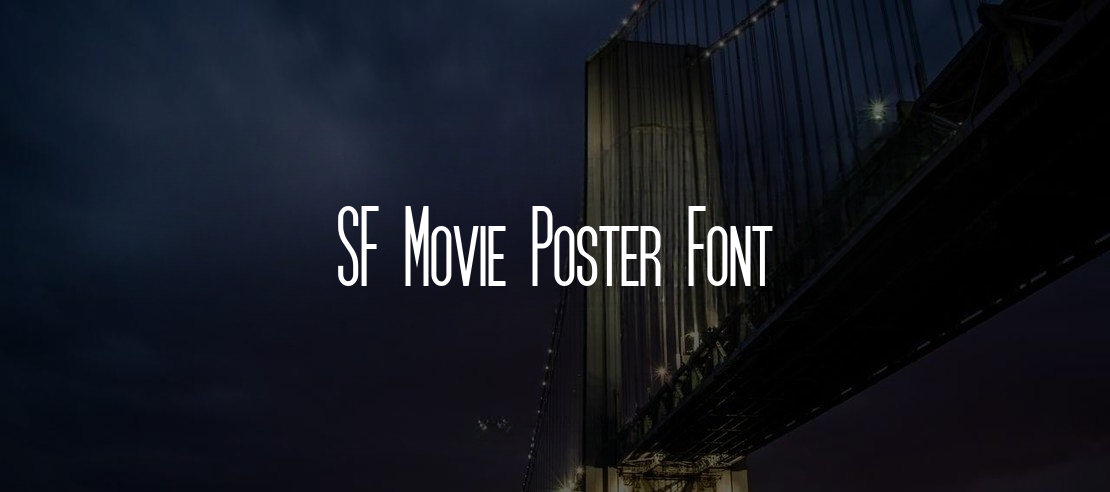
Let me introduce to you an interesting and attractive typeface. SF Movie Poster Font is an interesting, neat, and clean typeface. It belongs to the basic Sans Serif family. You can use this typeface in book titles, headings, covers, and posters.
This typeface has a complete set of characters including upper and lower case letters, numbers, special characters, and symbols. It also contains a complete set of glyphs. This typeface consists of eight different unique styles(Regular, Bold, Oblique, Condensed, Bold Oblique, Bold Condensed, Condensed Oblique, and Oblique Bold Condensed).
This typeface can be used in shop names, magazine covers, logos, brochures, branding, fashion designs, T-Shirt designs, book titles, posters, websites, presentations, banners, product packaging, invitation cards, and many different projects.
Designer of SF Movie Poster Font
This simple and attractive typeface is designed by a famous American typeface designer Derek Vogelpohl for the foundry Shy Fonts in 2009.
This font style is created with an exclusive and regular style. This single attractive style is a combination of various features, containing Upper and lower case letters, digits, symbols, punctuations, glyphs, special characters, and different language support.
View of SF Movie Poster Font
Is SF Movie Poster typeface old-style?
No, it is not an old-style typeface. It is a modern style typeface.
Is SF Movie Poster Font Fancy font?
No, it is not a fancy typeface. It belongs to the basic Sans Serif family.
Is SF Movie Poster Font good for titles?
Yes, it is good for titles. It is also good for headings, covers, invitation cards, and fashion designing.